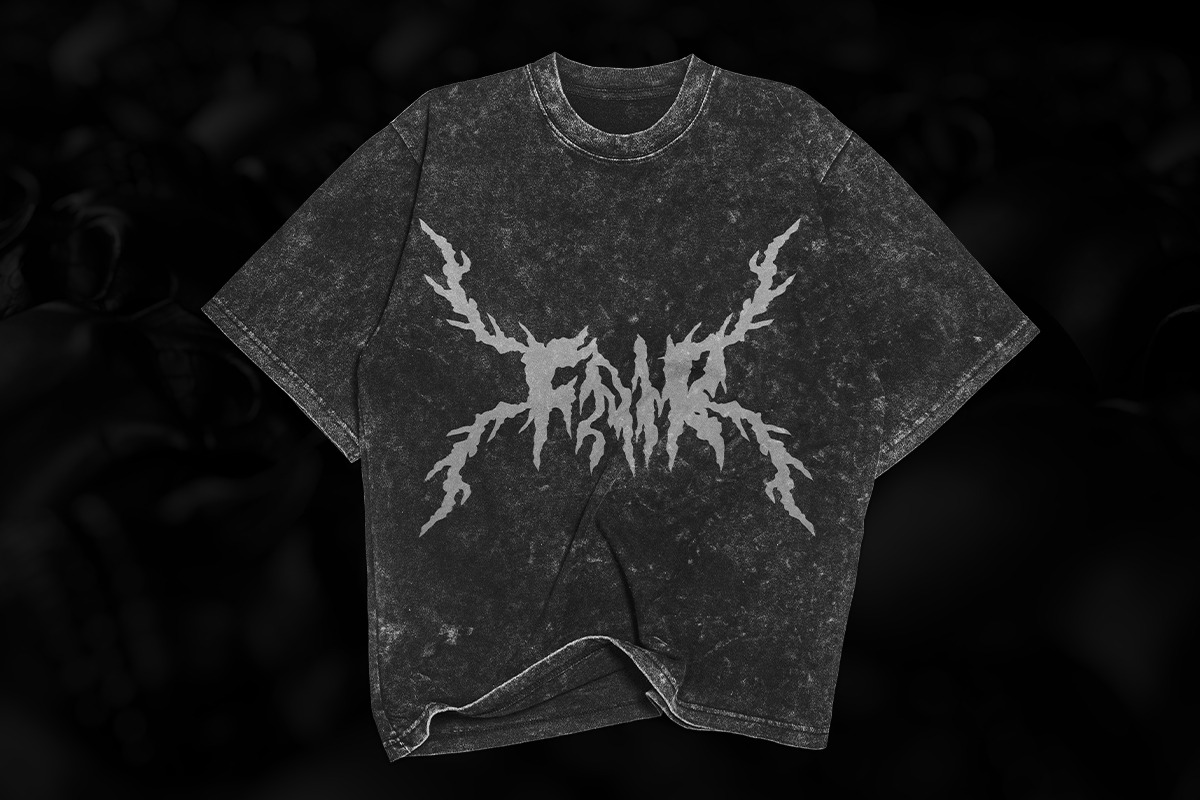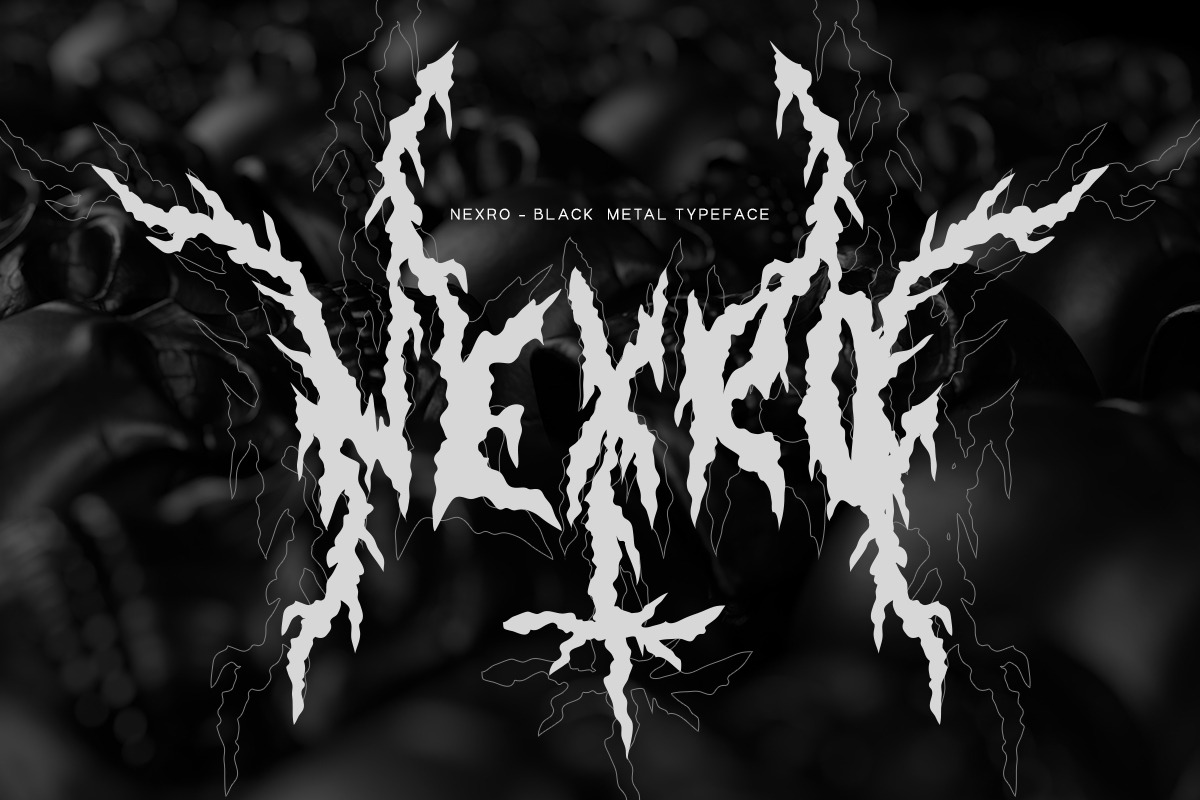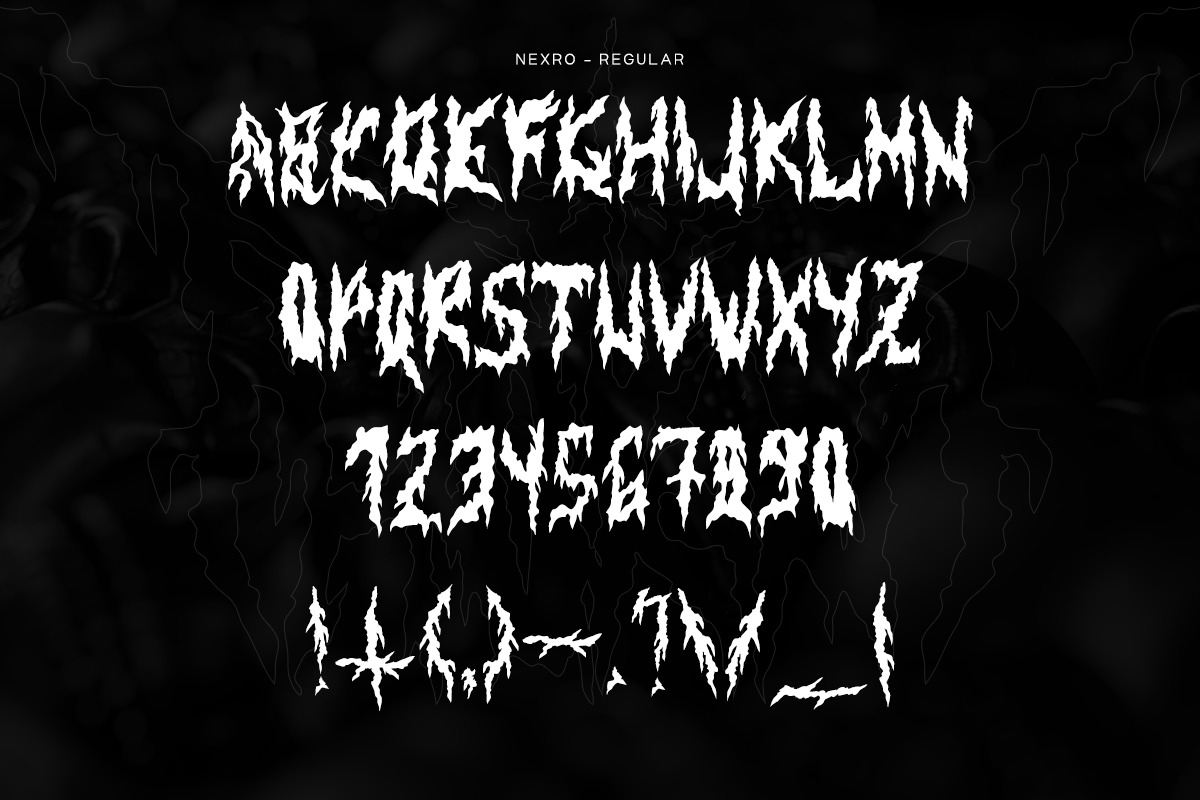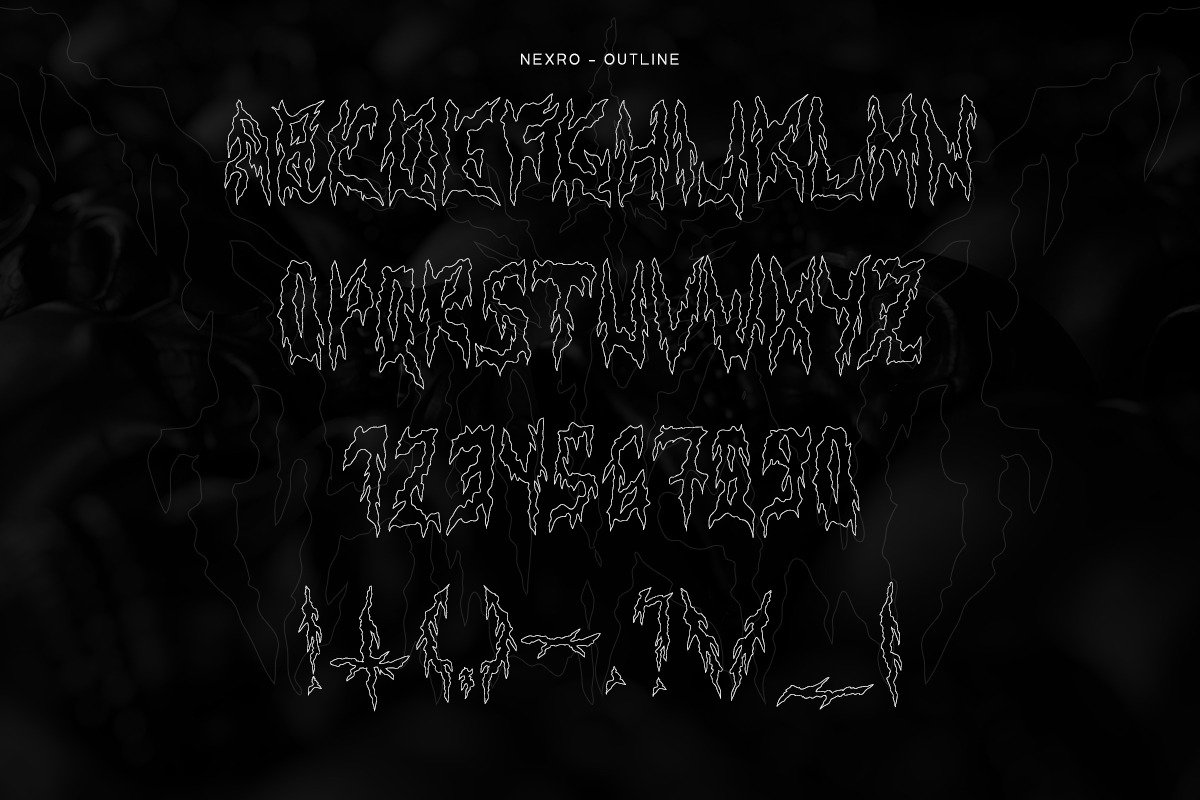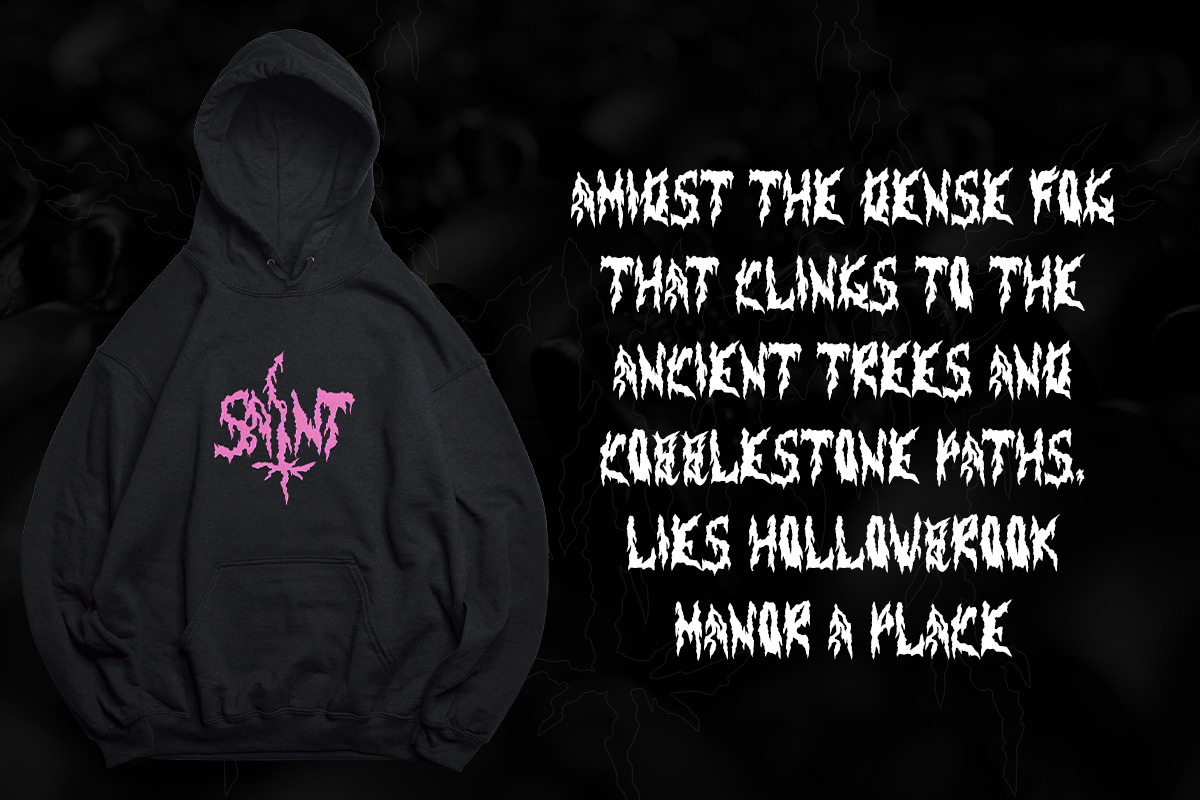
NEXRO - BLACK METAL TYPEFACE
Introducing NEXRO: Unleash the Darkness in Your Designs!
Embrace the Darkness: NEXRO is born from the depths of Black Metal aesthetics, capturing the essence of chaos and rebellion. Each character drips with an otherworldly intensity, infusing your text with an aura of mystique that's impossible to ignore.
Versatile and Dynamic: While NEXRO thrives in the realm of darkness, it's a versatile typeface that adapts to various design scenarios. From album covers to posters, from branding to apparel, NEXRO breathes life into your concepts, infusing them with unparalleled energy.
Every curve, every stroke, every detail is a testament to the dedication poured into creating a typeface.